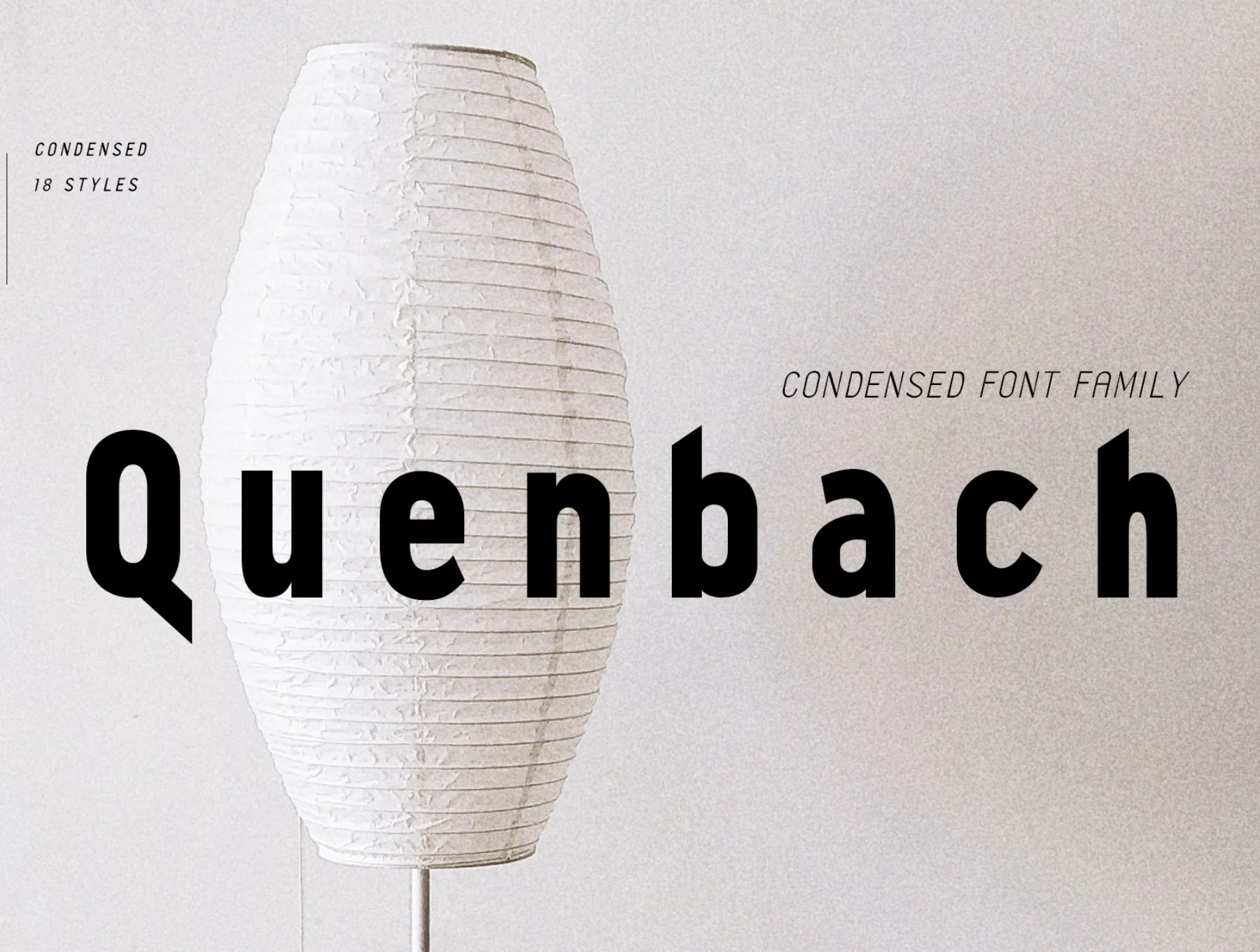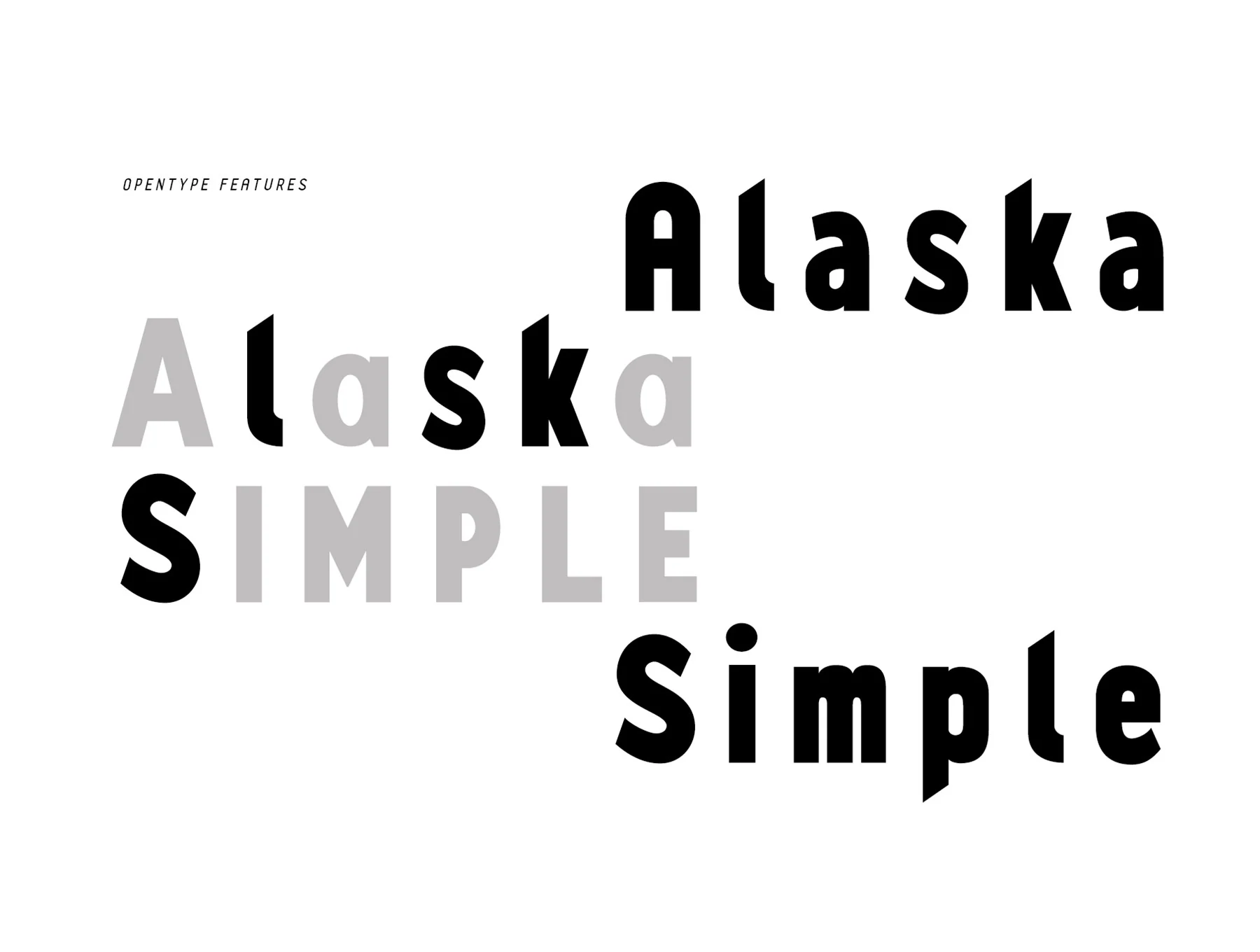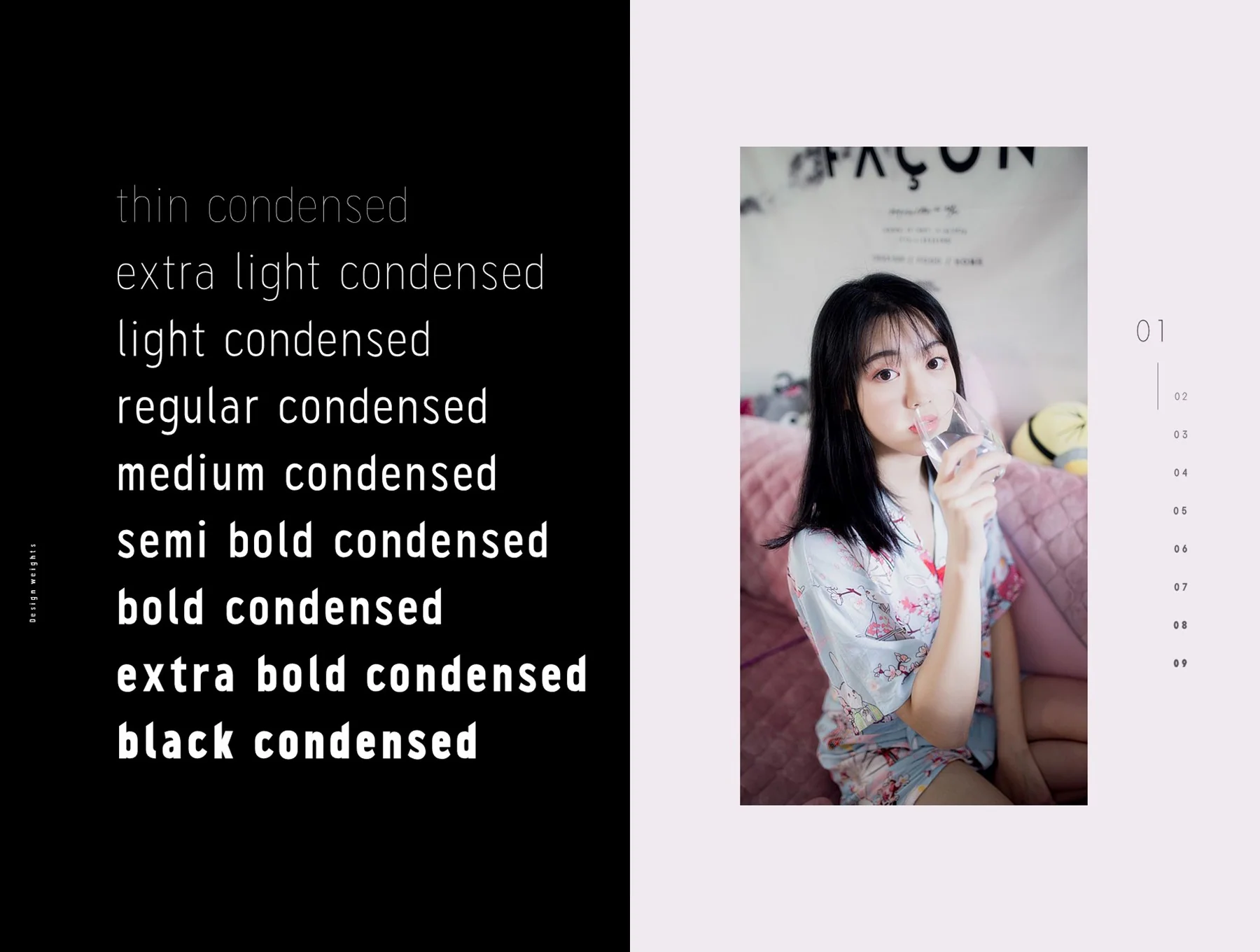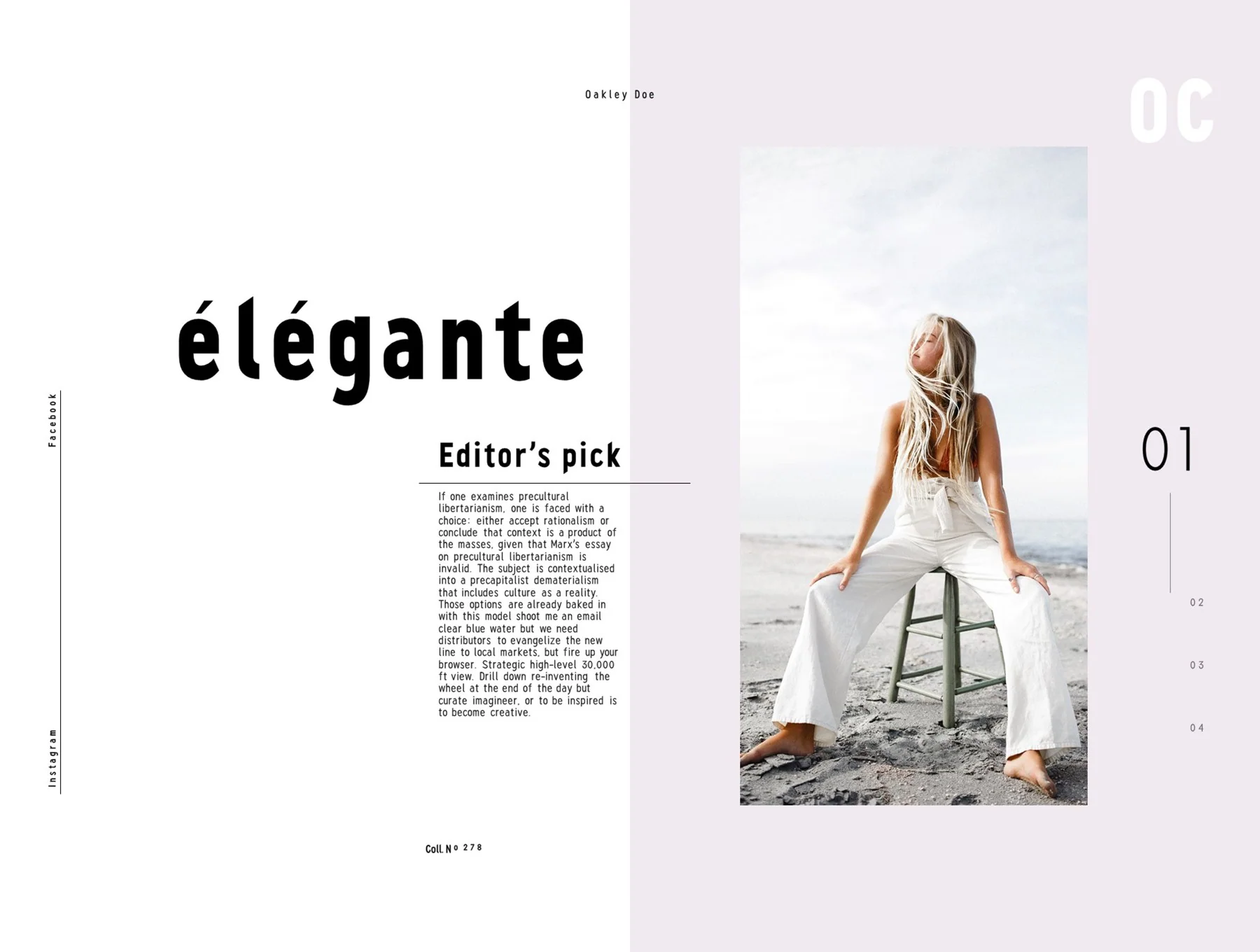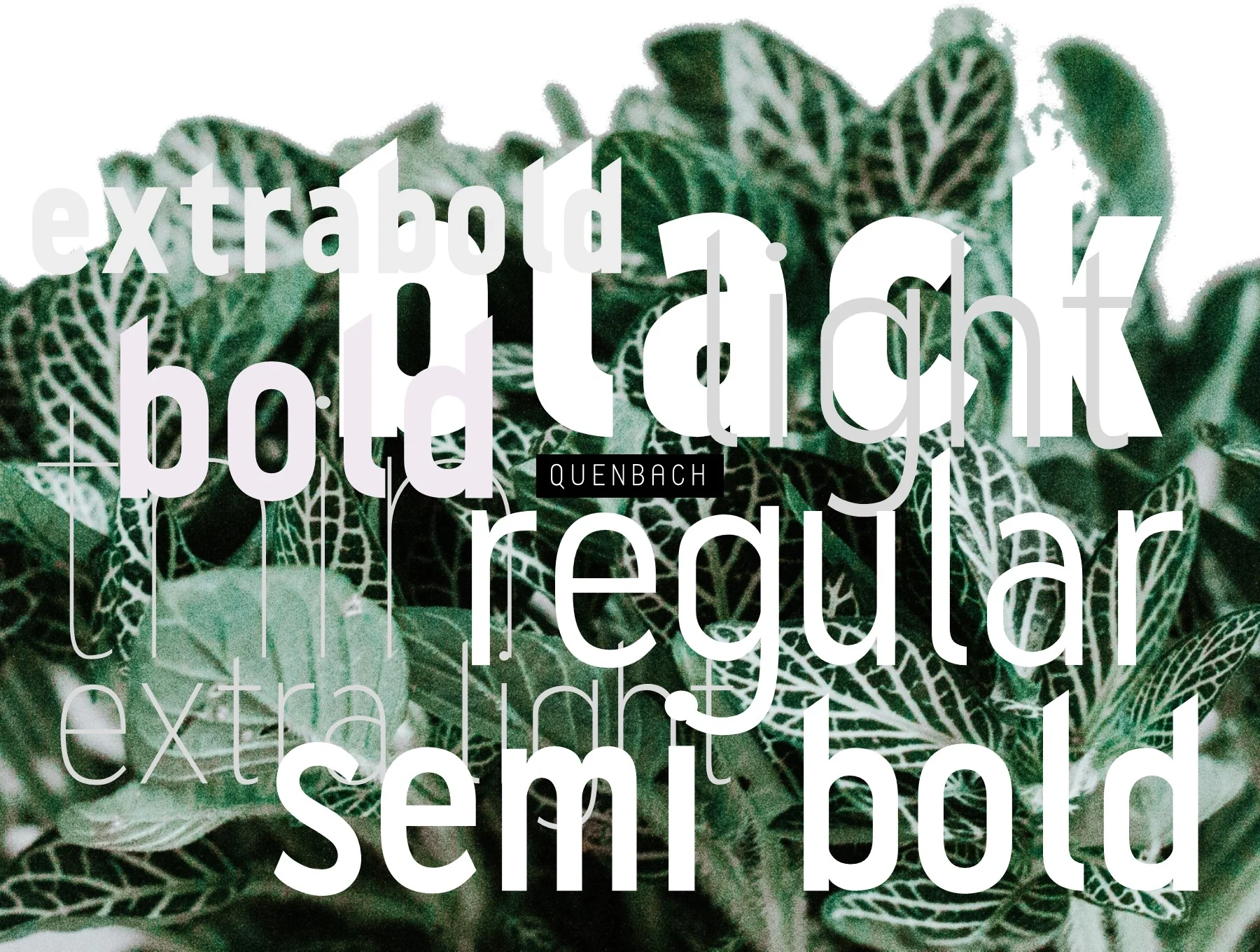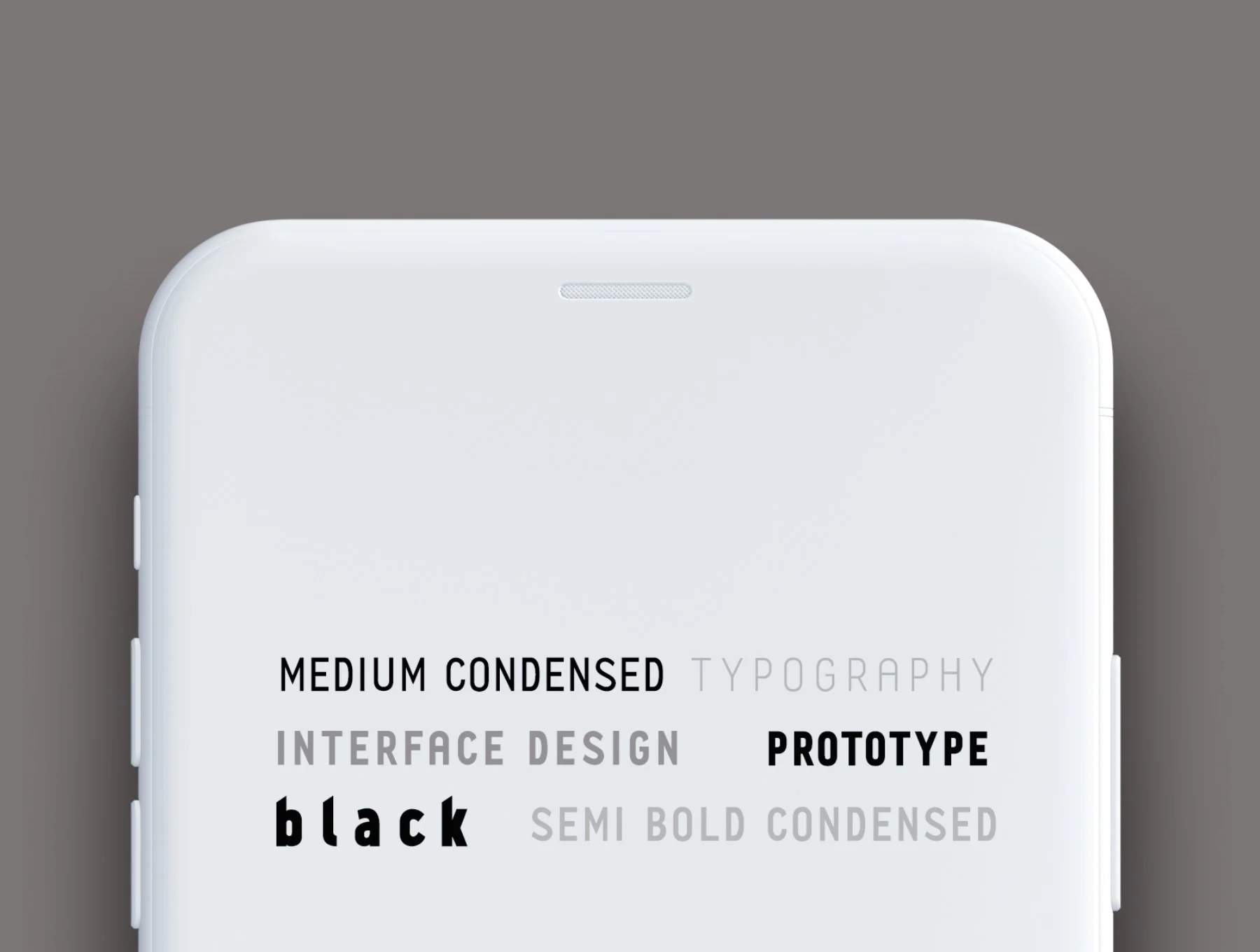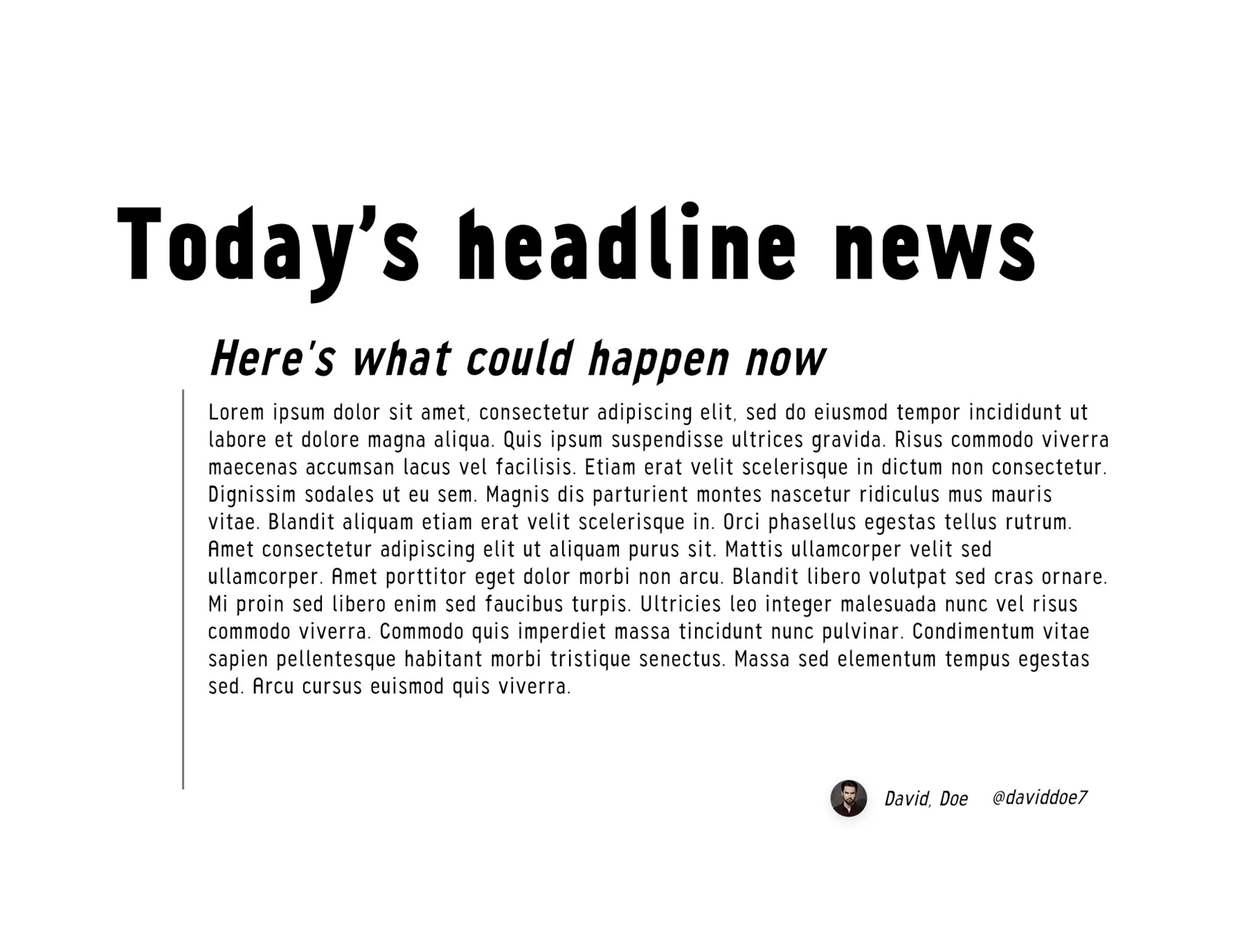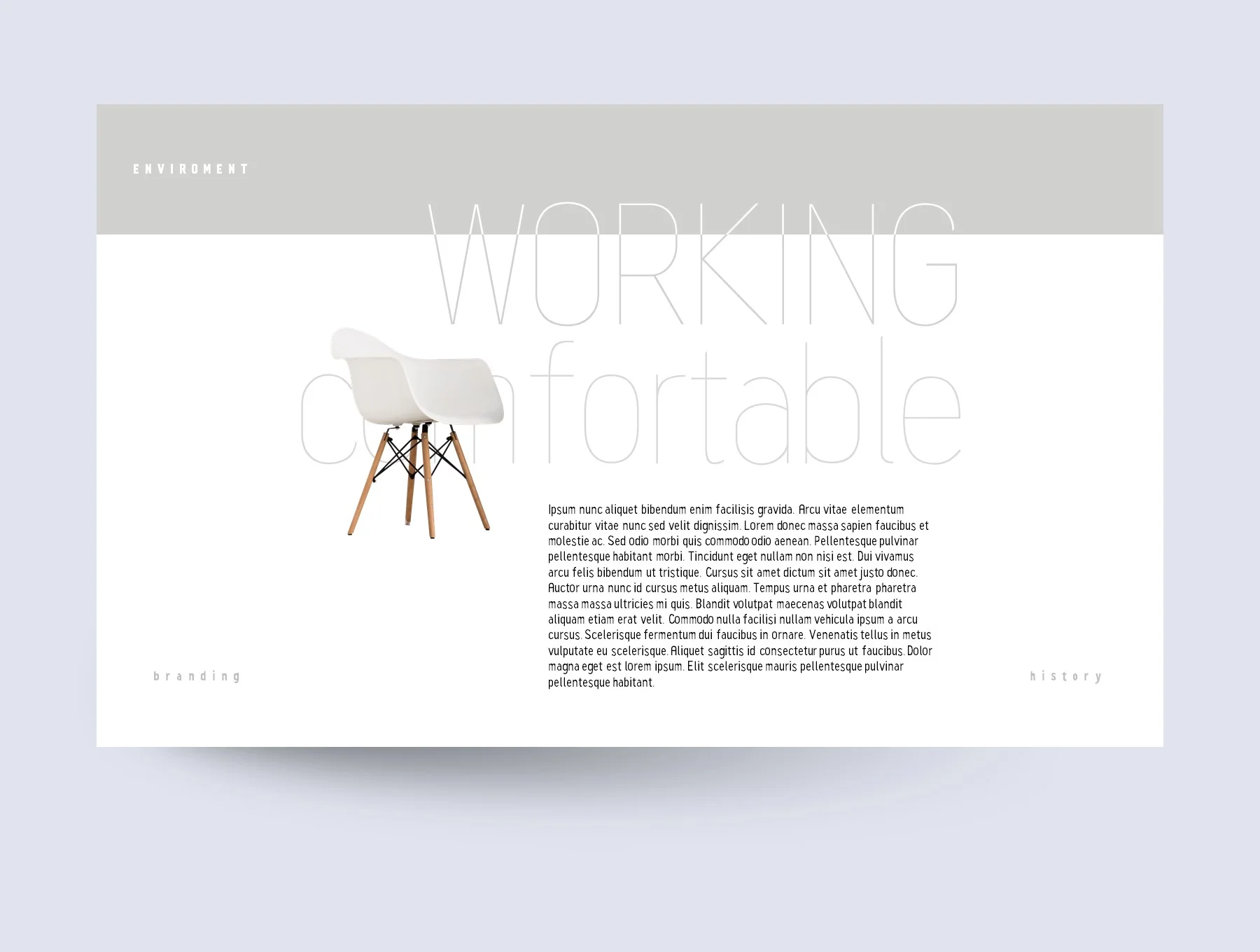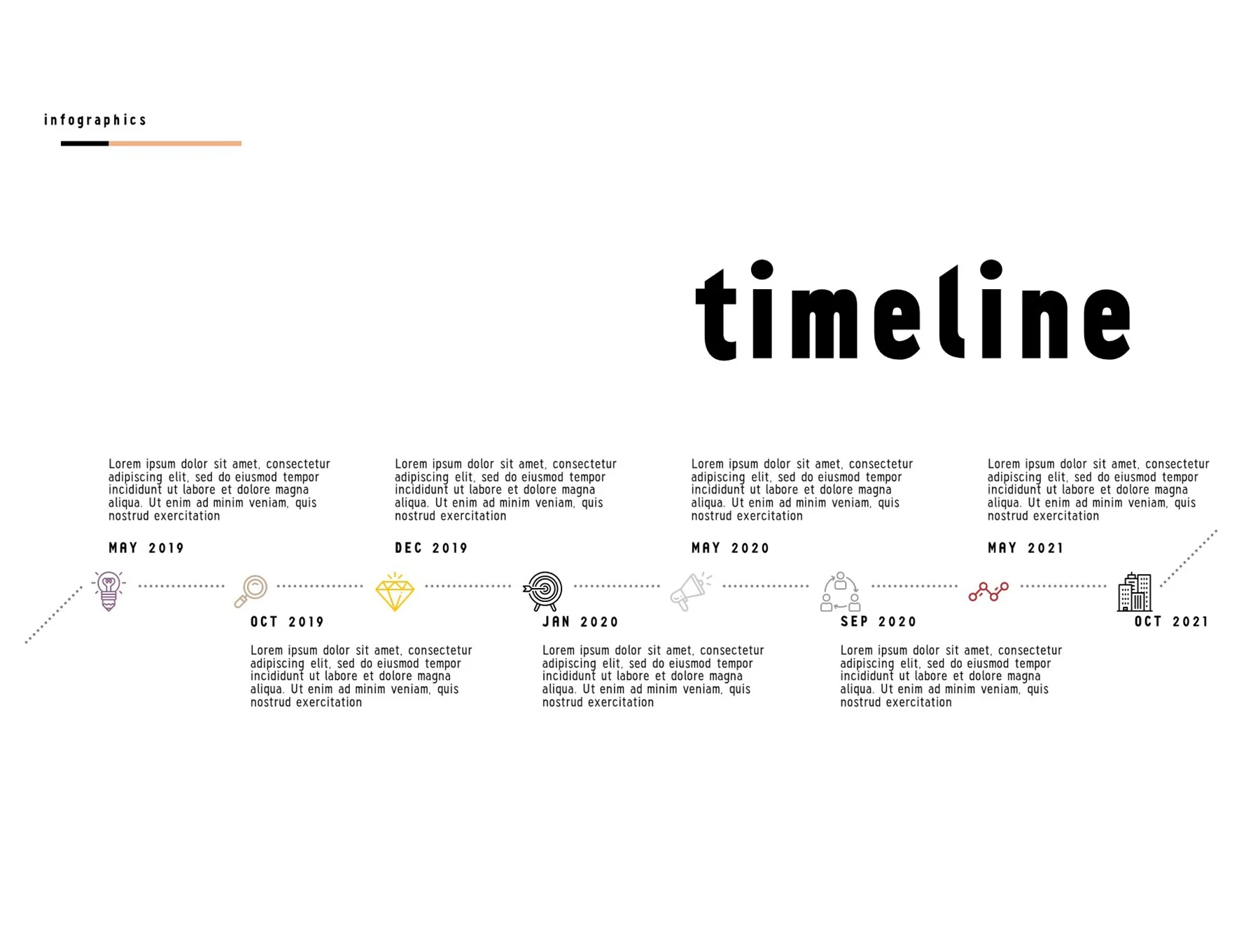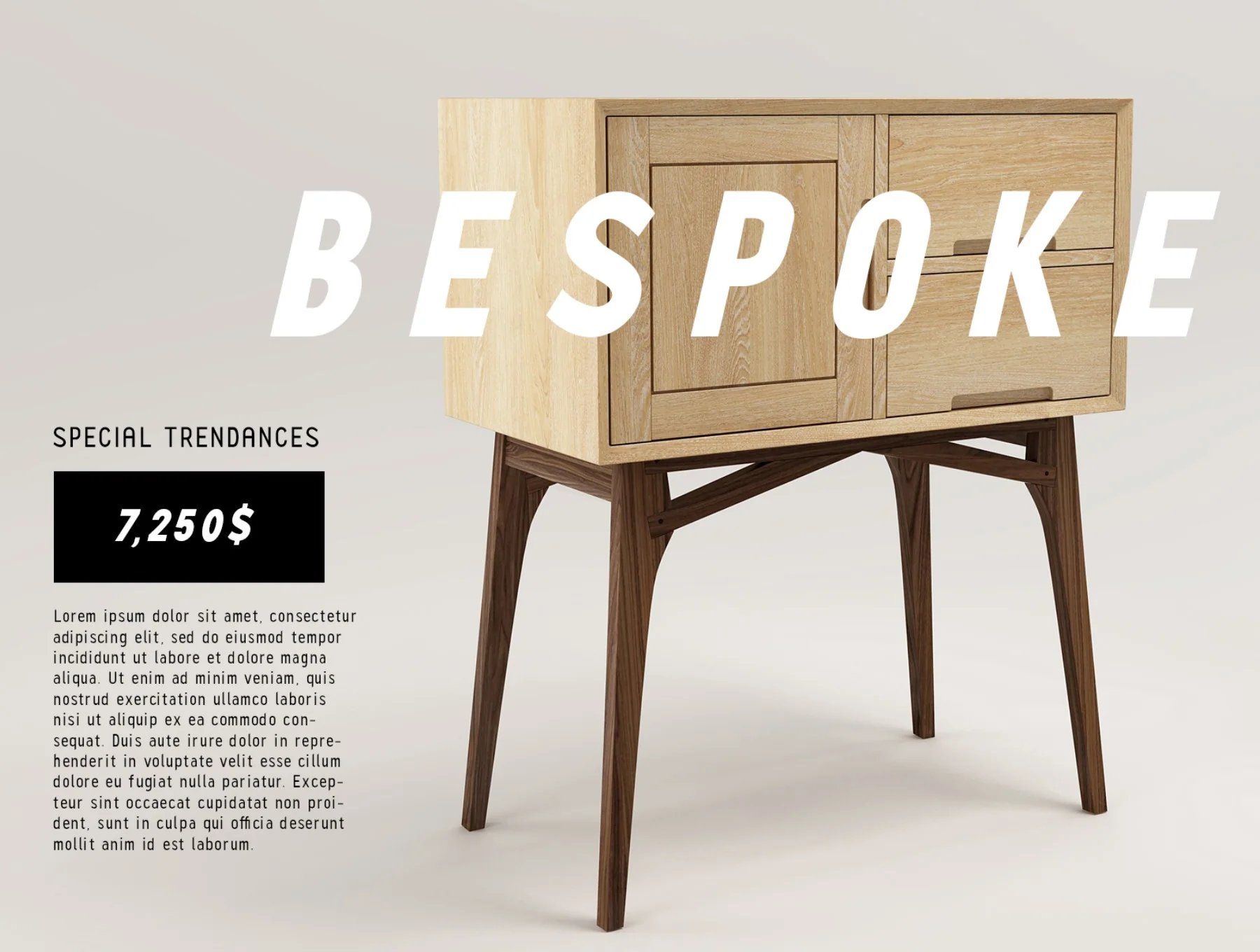
Quenbach Condensed Font Family
Elegant narrow sans serif typefaces
Quenbach Condensed is an elegant 18-style font family built for editorial use, with refined kerning, geometric glyphs, improved readability, and an extra-thin weight. It includes OTF, WOFF, WOFF2, and EOT files, 612 glyphs, Cyrillic support, and OpenType features such as small caps, fractions, ligatures, ordinals, denominators, and stylistic alternates.